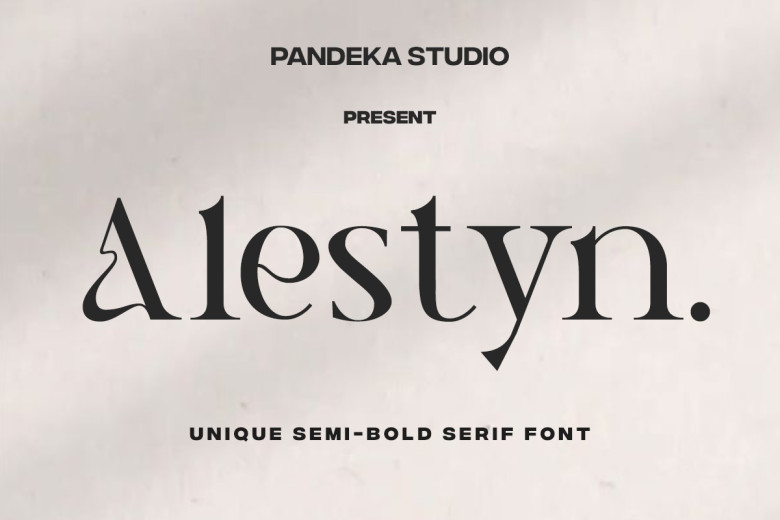
Alestyn Font
Presenting Alestyn a serif typeface which is elegant and refined yet not reserved for the older versions of computers alone. That has clean lines, a sleek 21st-century appearance, and the style of traditional yacht design. Alestyn has a unique quality of enhancing the feminine and classy looks to any client who brings her design ideas, and as such, the best-suited model for any classy project.
Great for greeting cards, product wraps, logos, flyers, and other need, Alestyn guarantees that your designs are bright and stylish. It offers a creative yet flexible personality to you and can be as intense or laid back as you want it to be; most definitely it gives a sweet and distinct finish to all your creations.